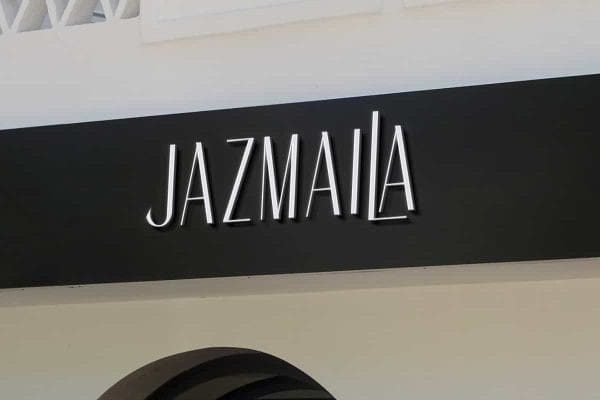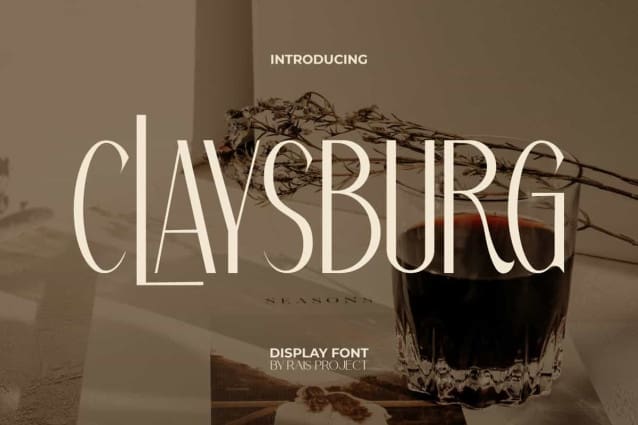
Claysburg Font
Claysburg Font is a outstanding modern stylish sans serif display font inspired from some classic styles. This font has a simple charm that remains classy to make your designs look luxurious at a glance. It will be good for any designs, such as cover, brand image, custom design, flyer, invitation, label, magazine, marketing material, poster, product packaging, quotes, signage, stationery, website page, and more!
Claysburg Font including a complete set of Uppercase and Lowercase basic characters, Numerals, large range of Punctuation and Ligature. This fabulous font also suitable for various industries, such as advertising, beauty product, event or wedding organizer, fashion, home furniture, marketing, movie, printing, publishing, real estate, restaurant, spa salon, etc.